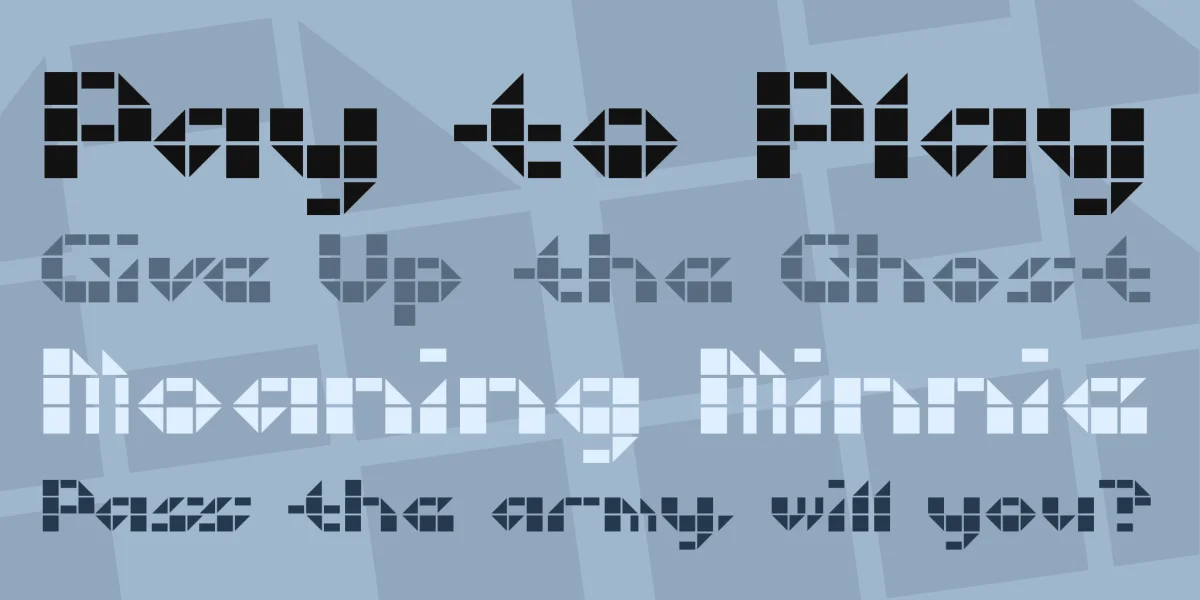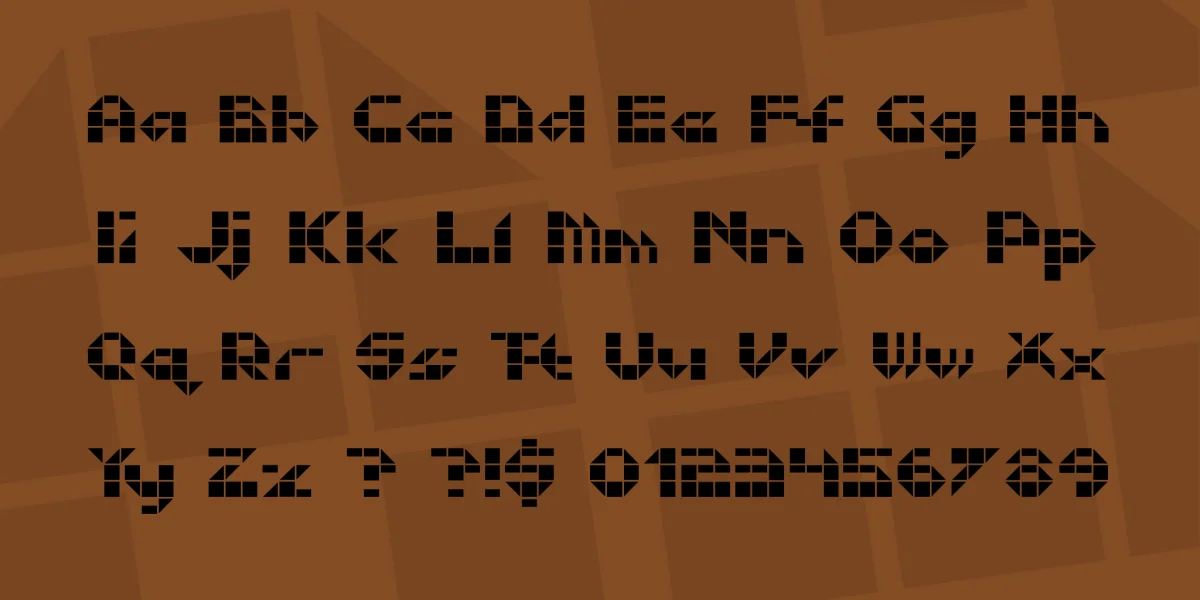
When I was just a lad, the Litebrite toy was my favorite graphical interface. Now it uses only circular pegs. What a shame. It was better in '75, man.